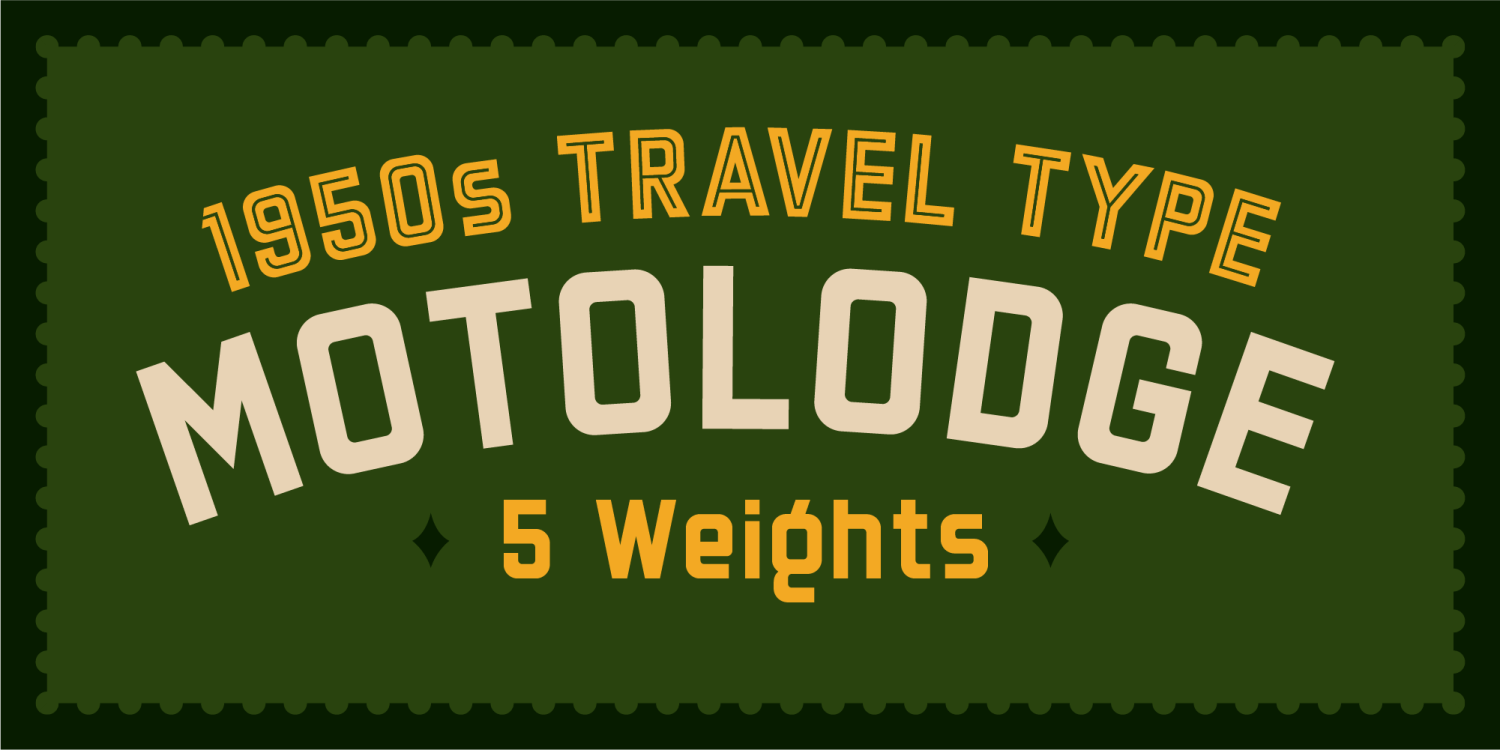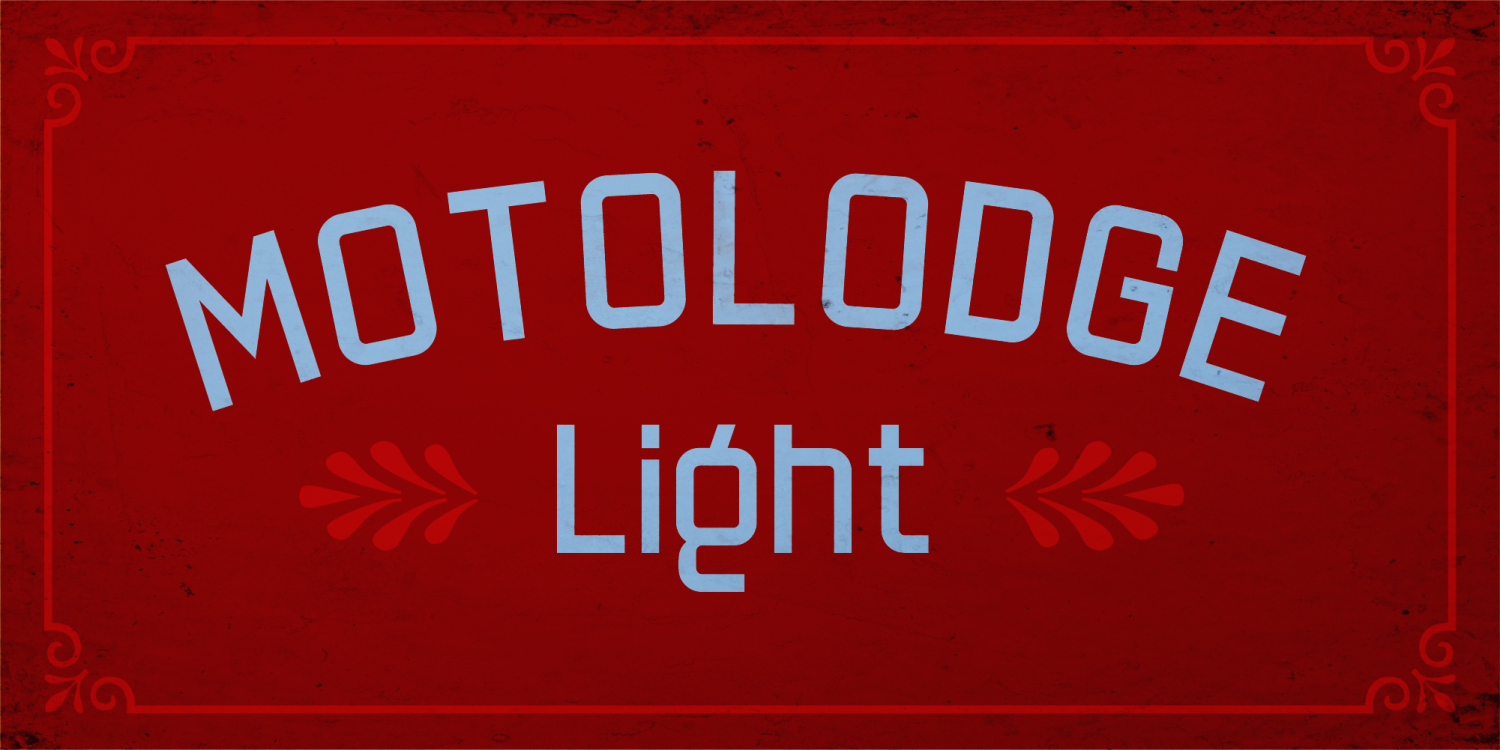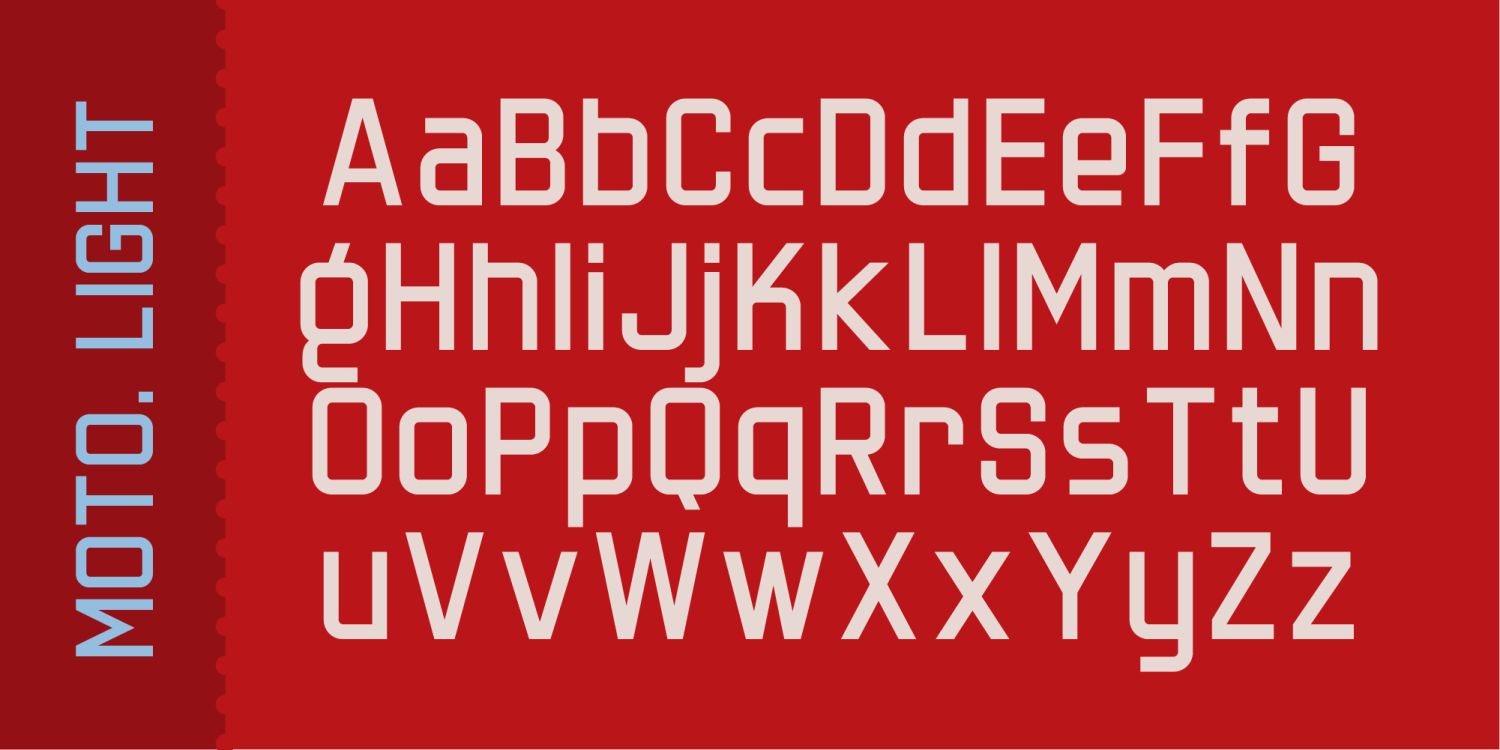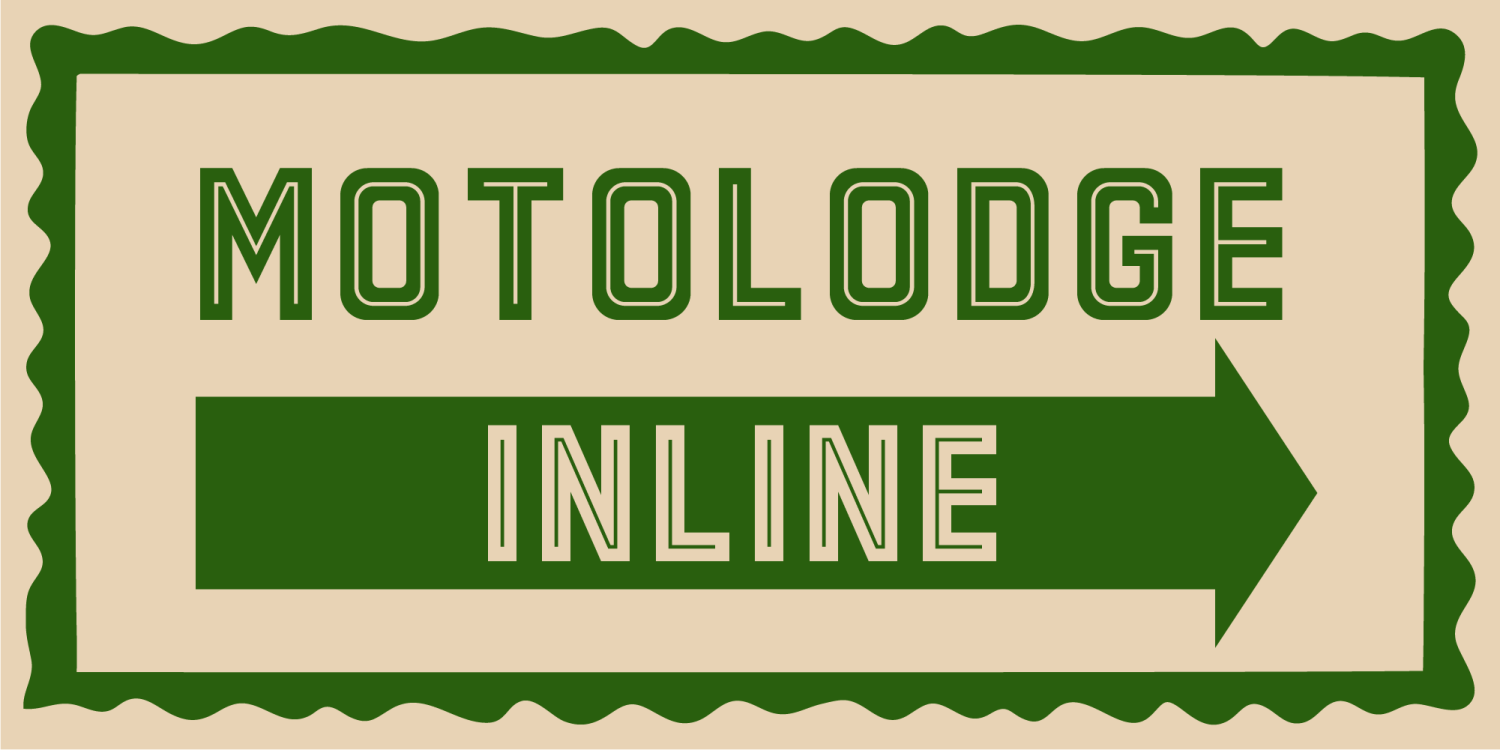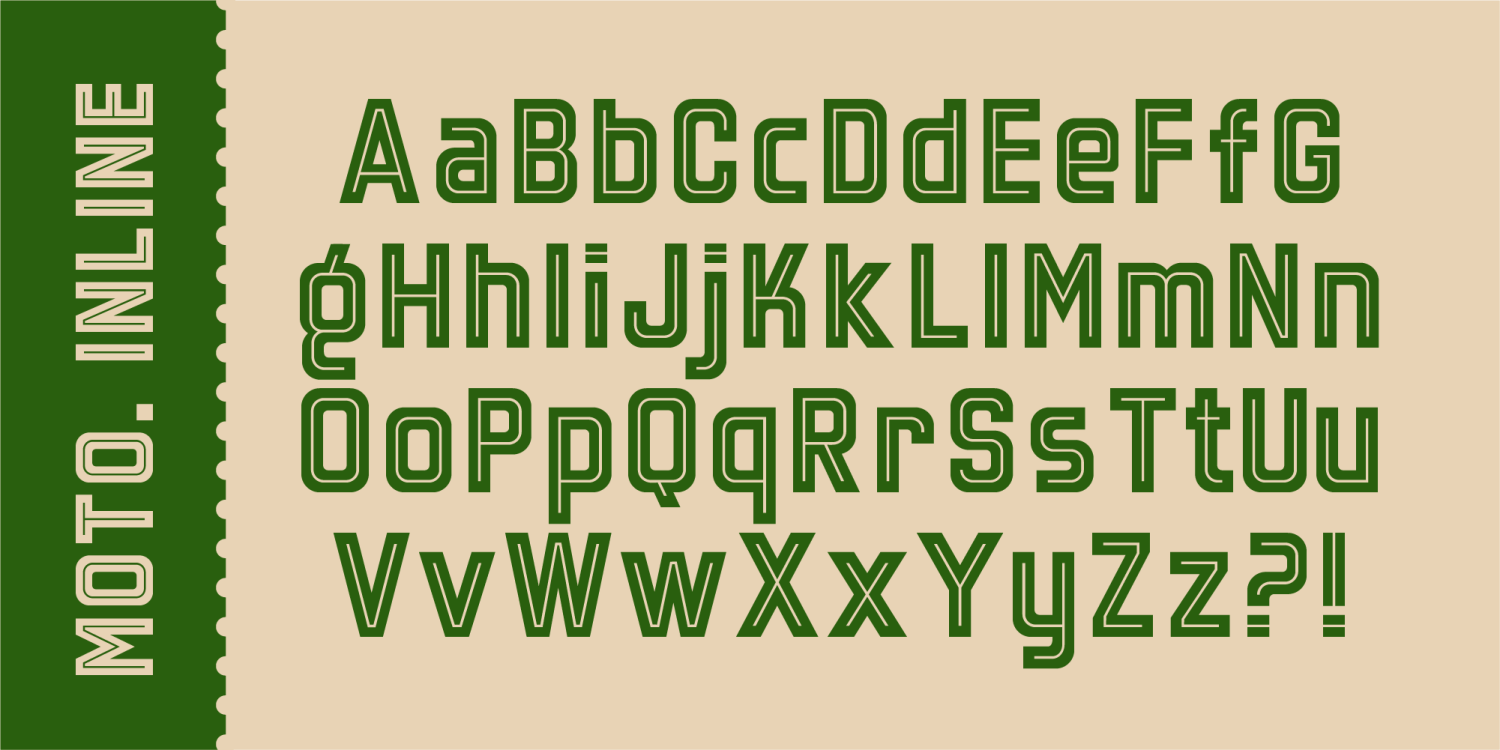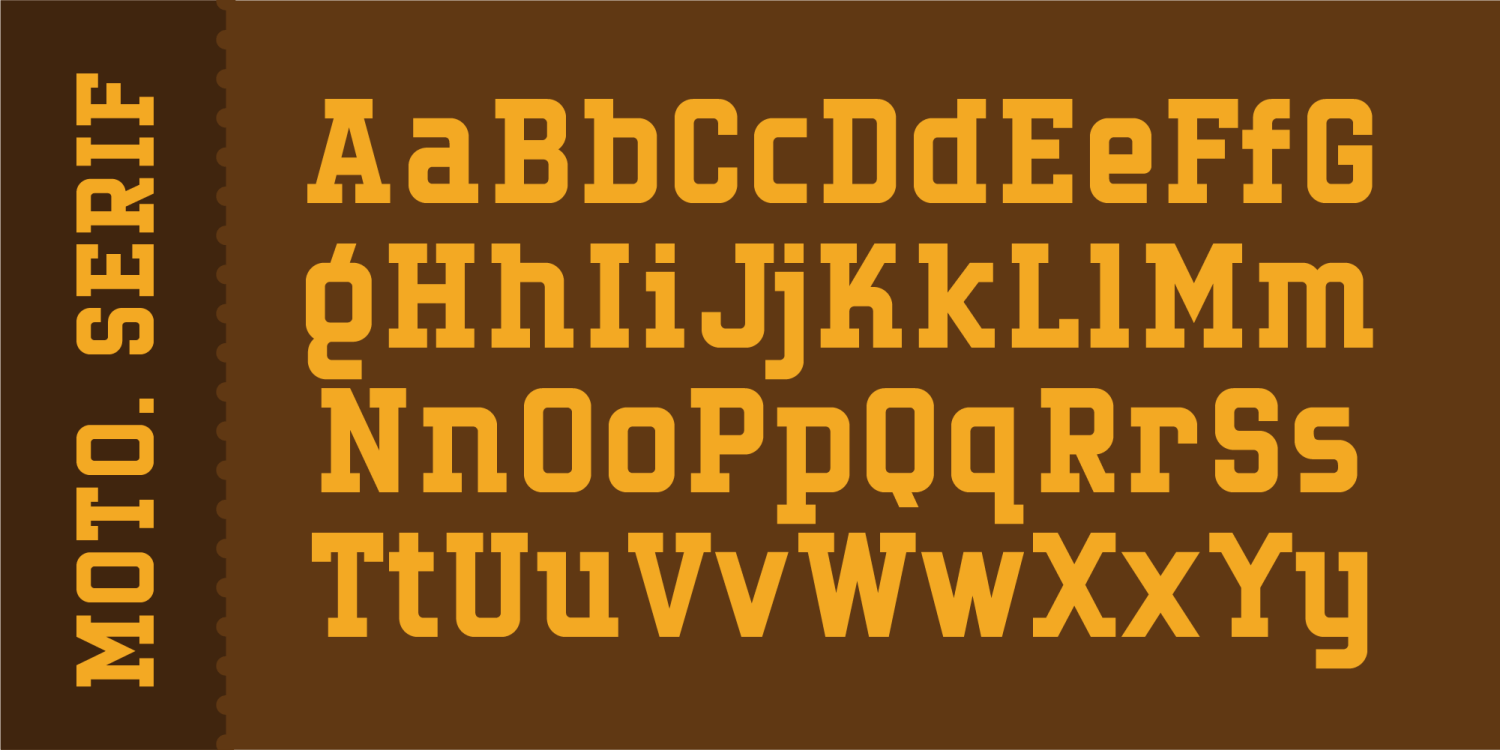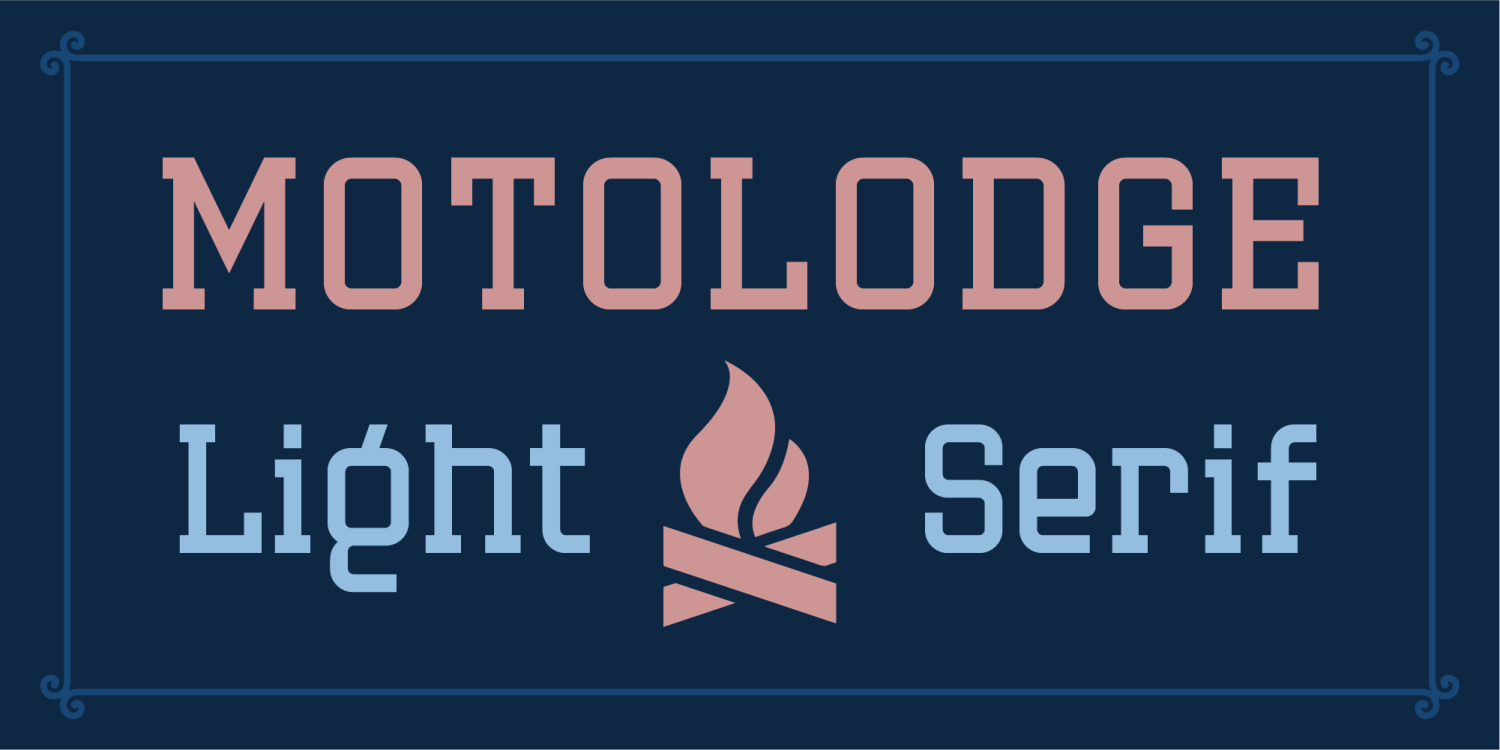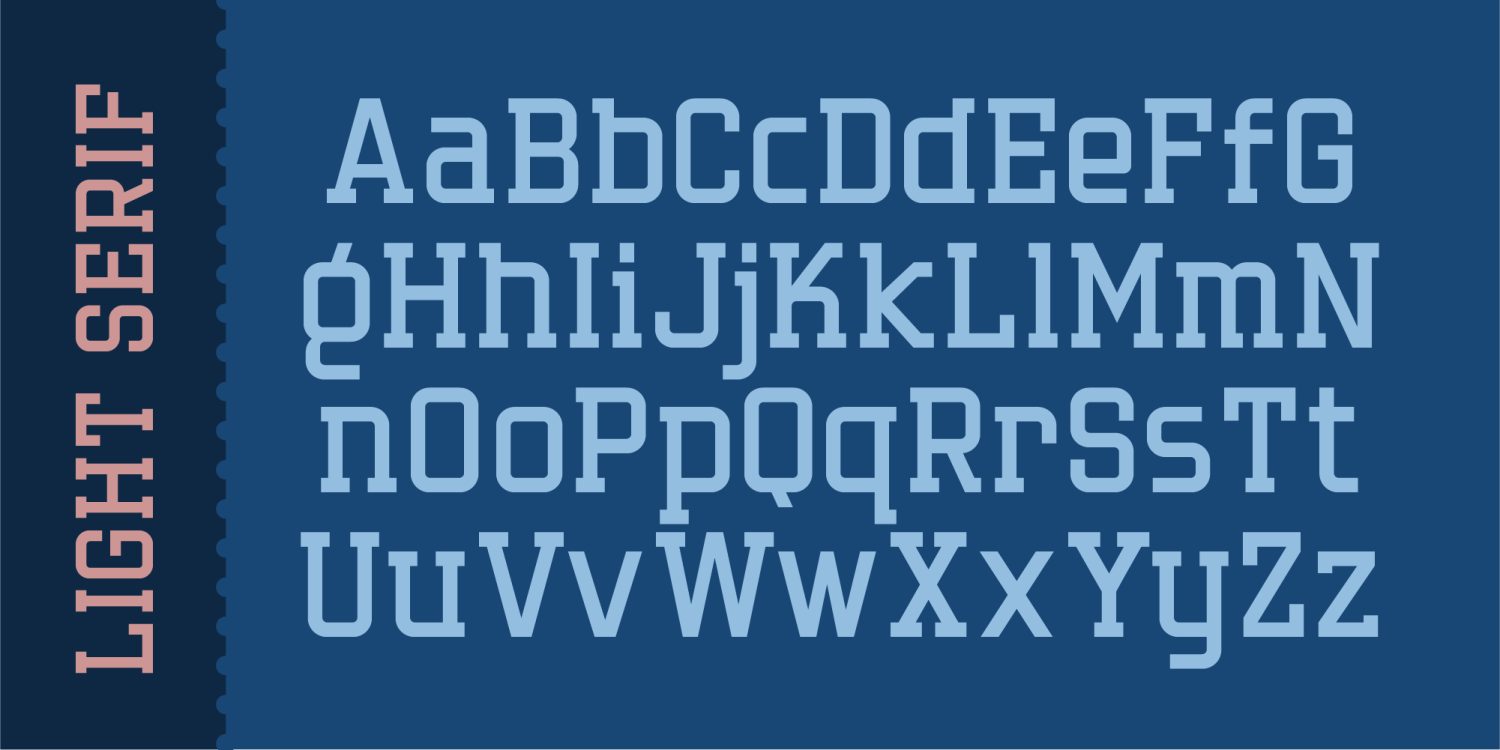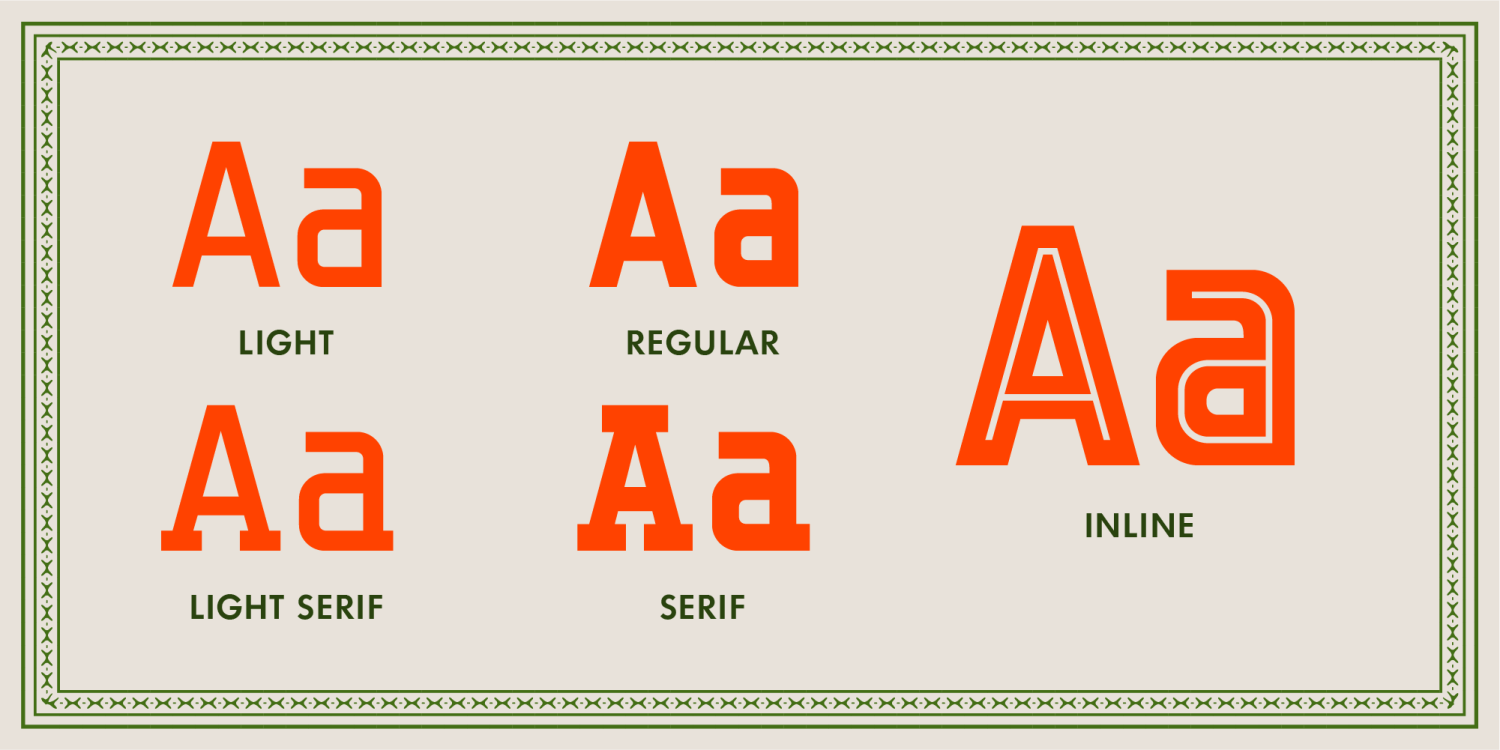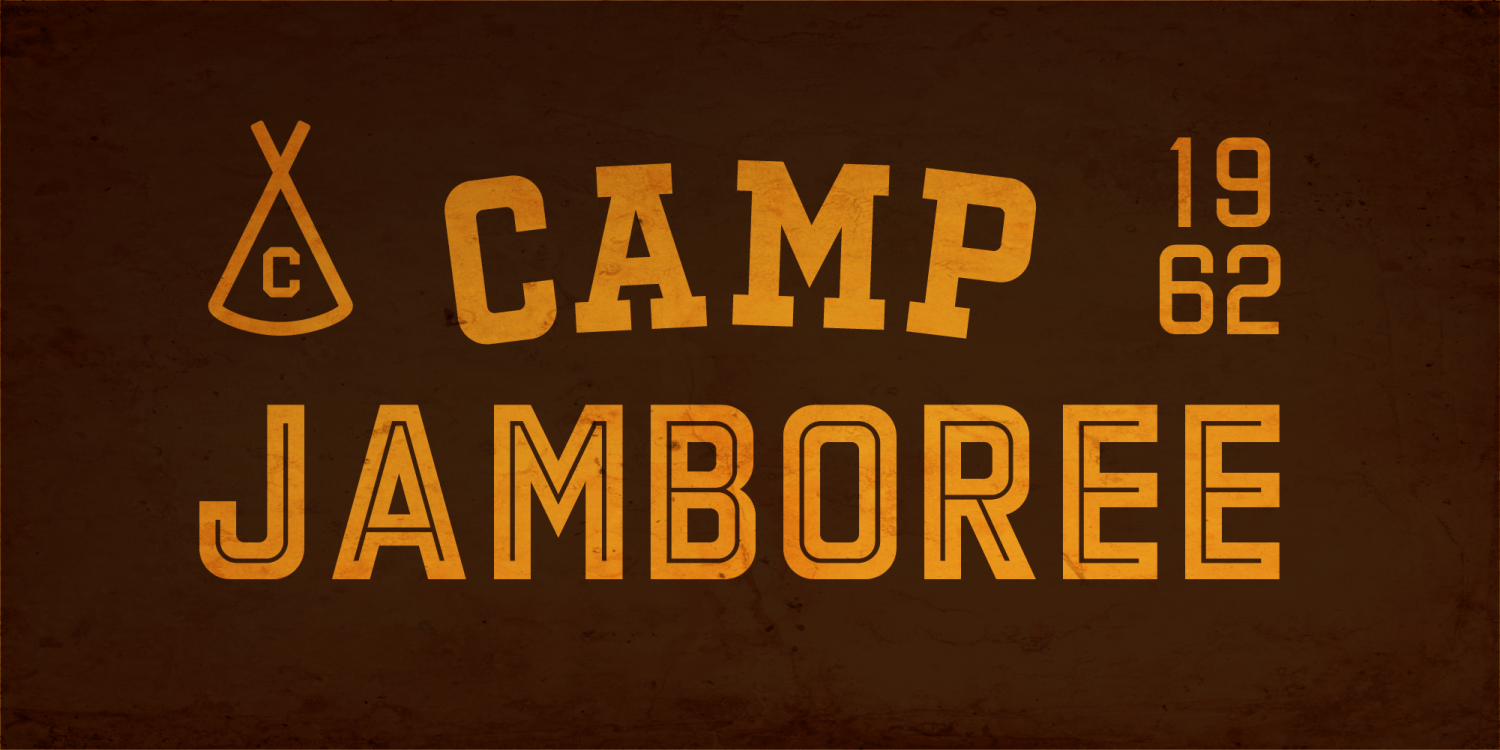
Introducing Motolodge, the standard travel font straight out of classic 1950s advertising. Feel the nostalgia as Motolodge teleports you to a time when diners served up milkshakes in metal cups, and neon signs lit up the night sky like a neon-soaked dream. Each letter is a time capsule, preserving the essence of an era when life was simpler, and the open road was an invitation to the unknown.Whether you're designing a vintage travel poster or creating a throwback invitation, Motolodge is your golden ticket to a retro rendezvous.